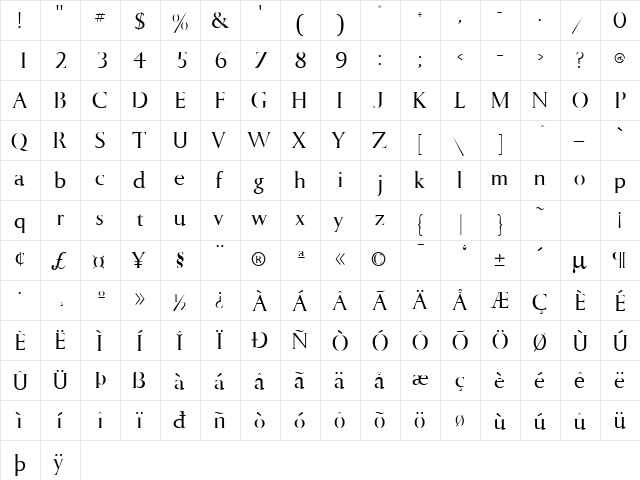
Senator Normal
Design Context for Senator Typeface
Senator takes a measured approach to typography — its balanced proportions and neutral character make it a reliable workhorse for both digital and print work.